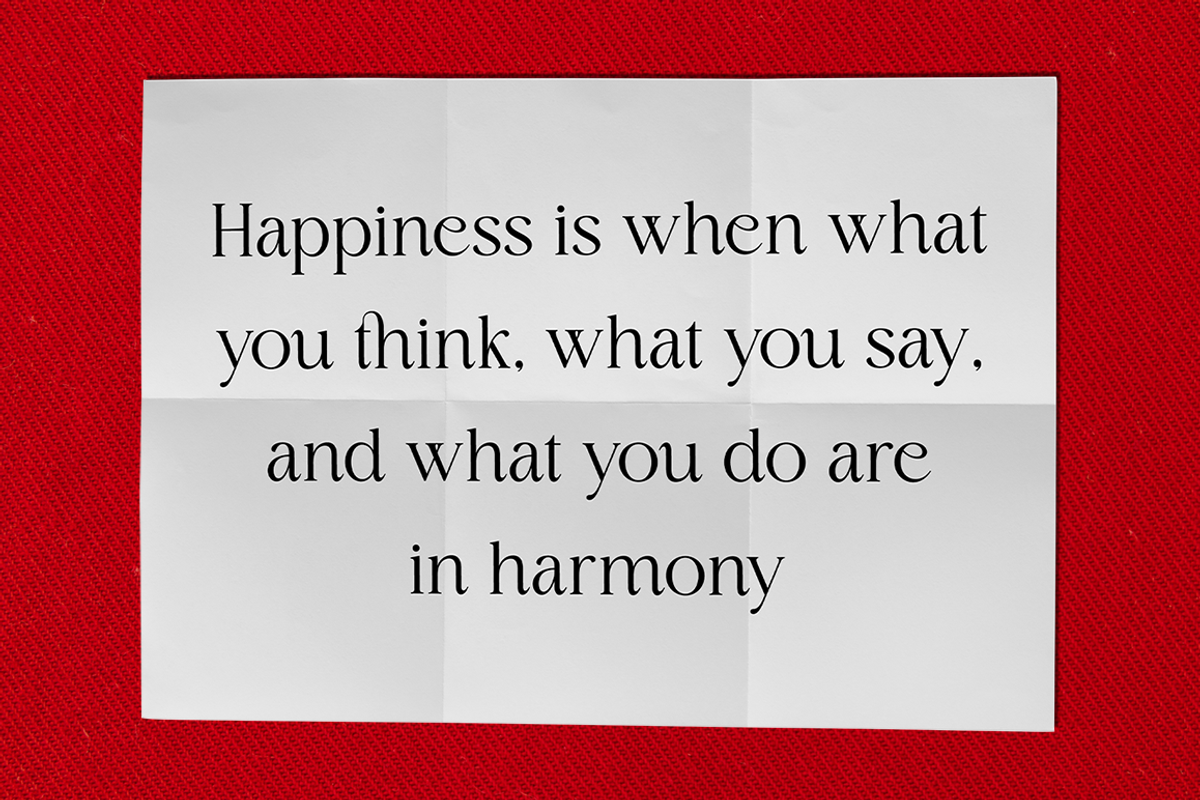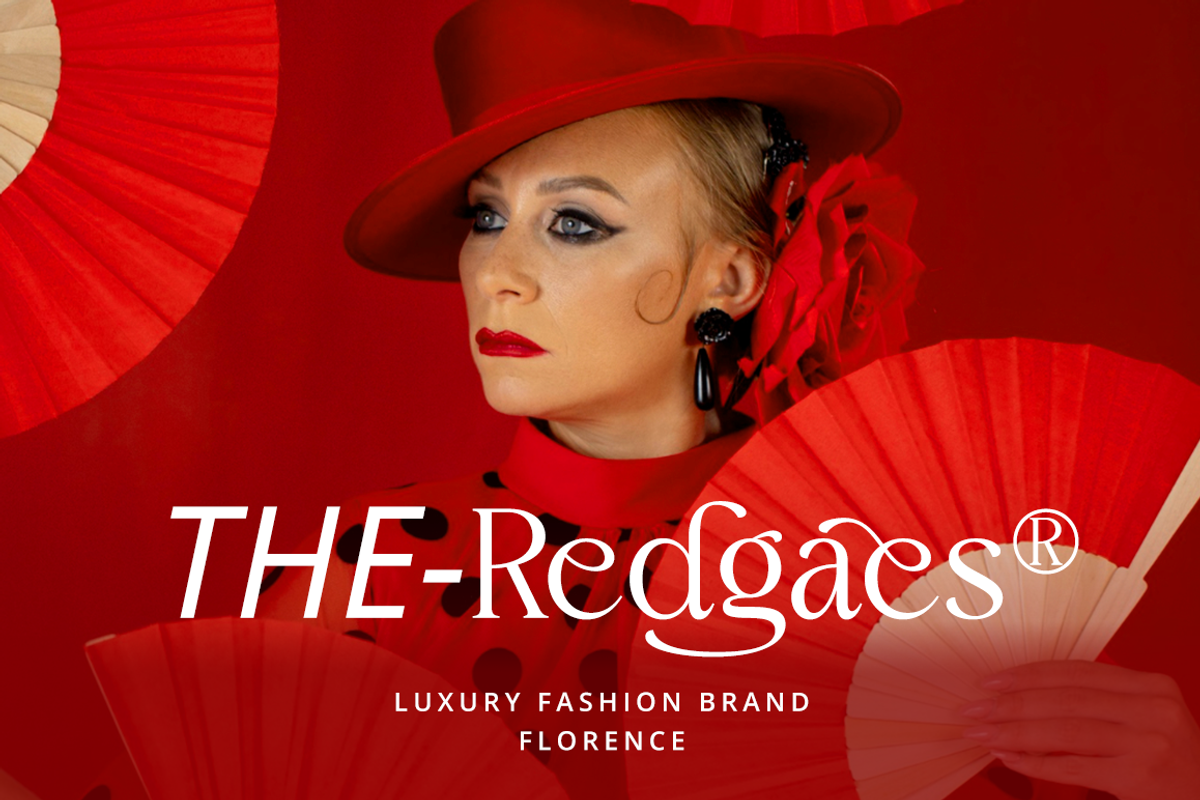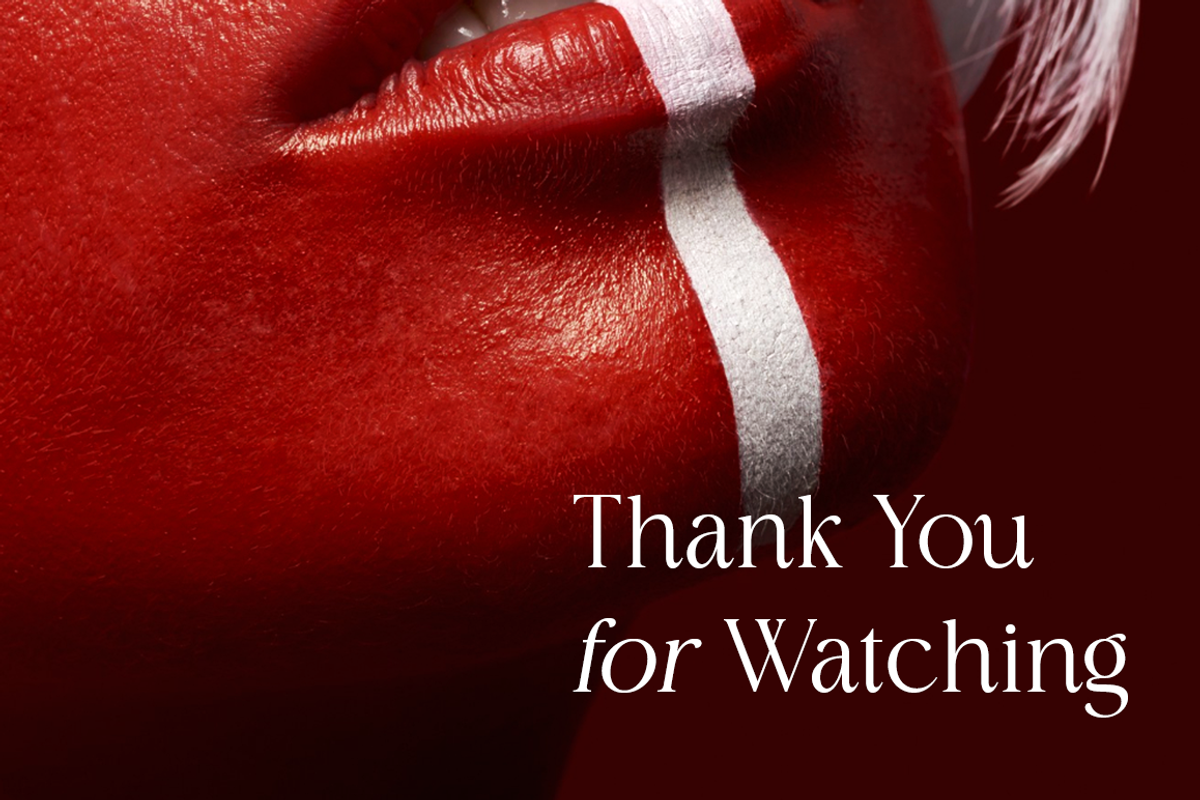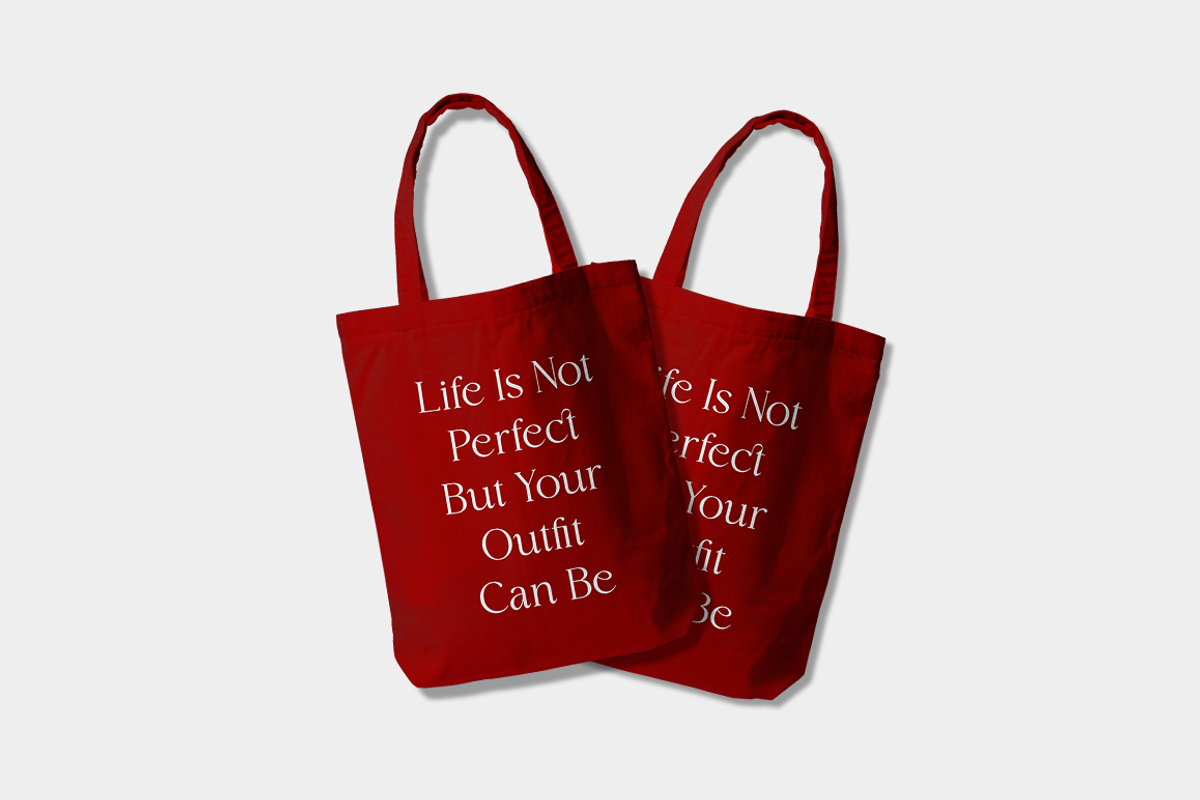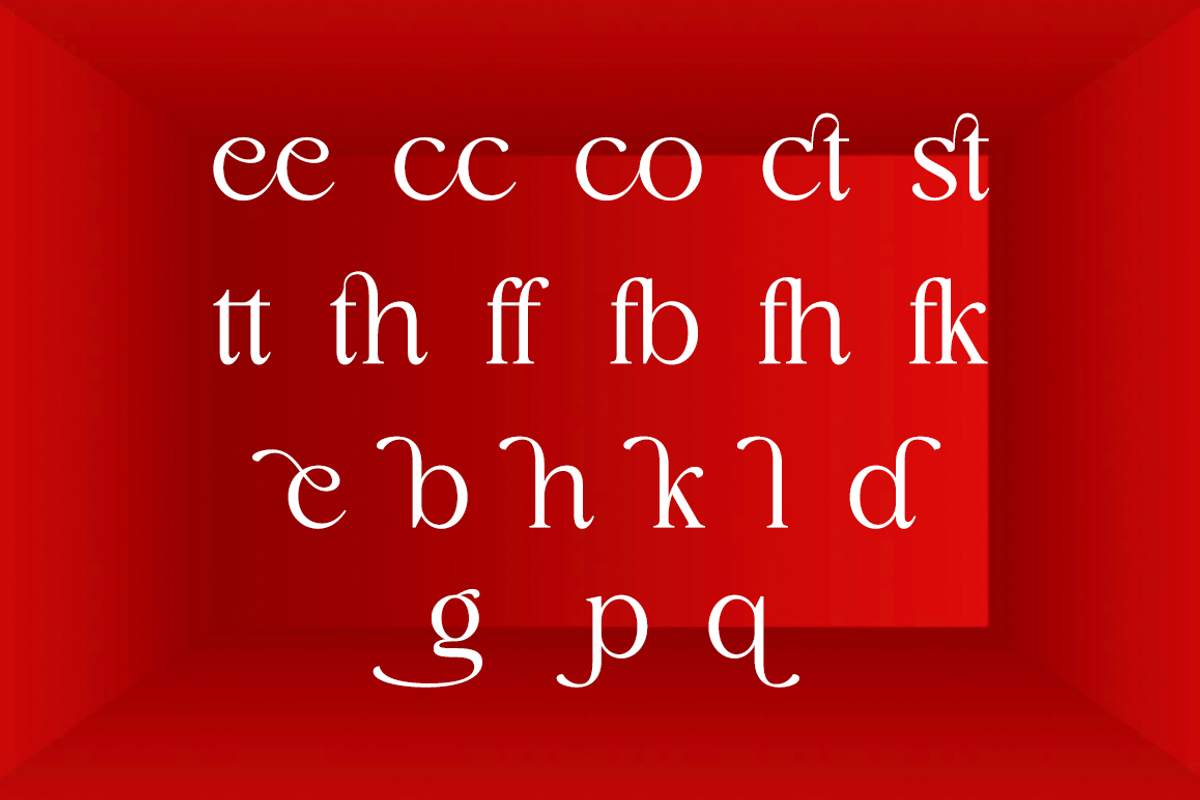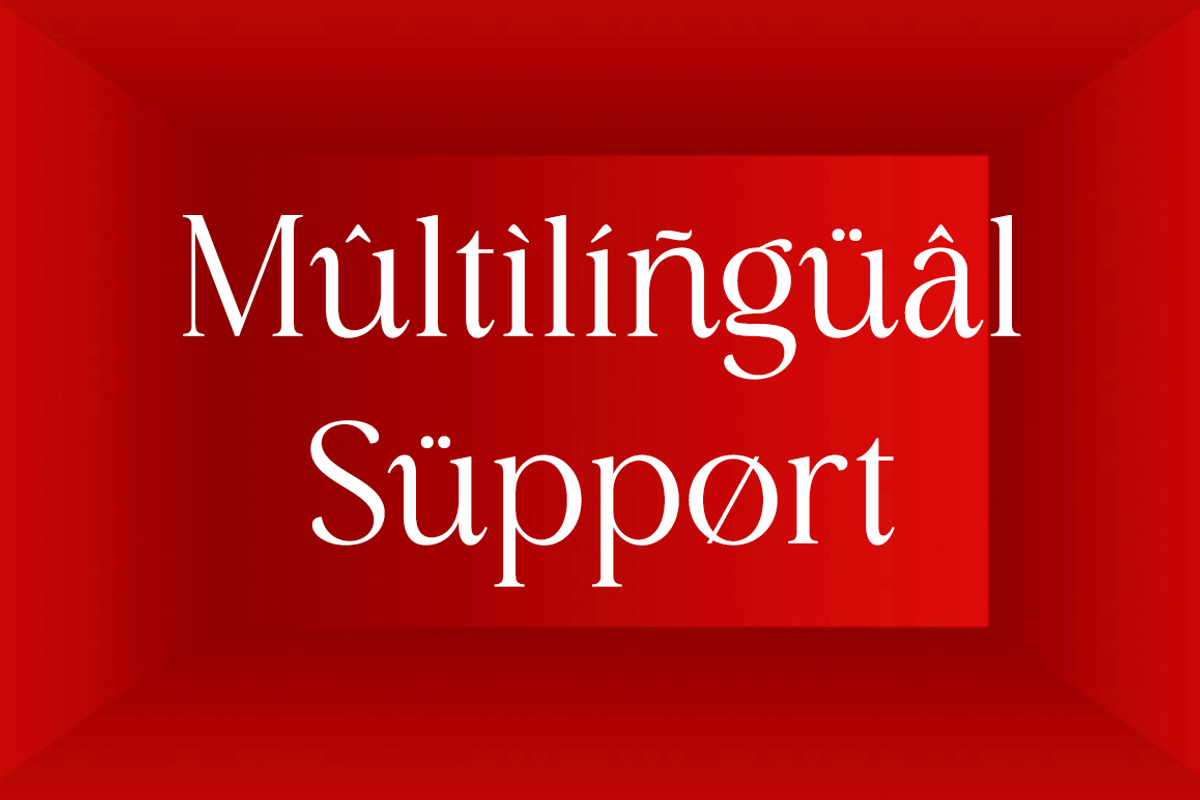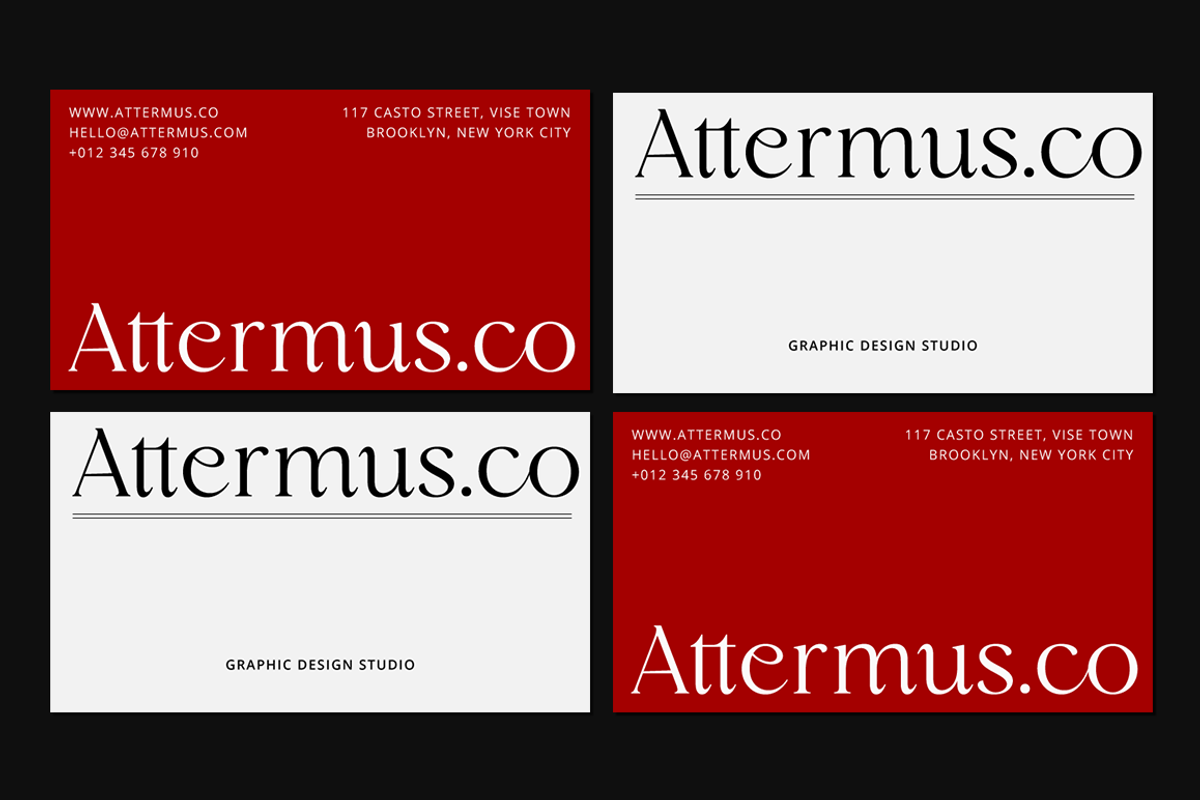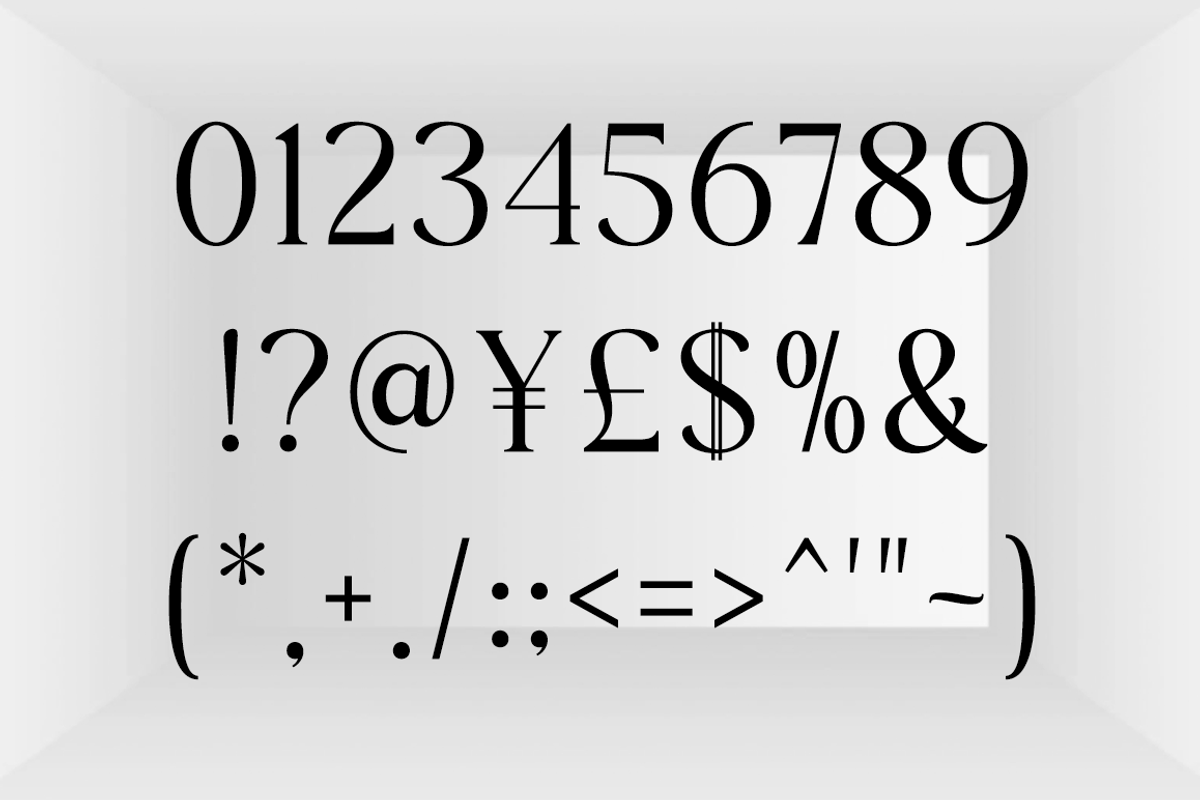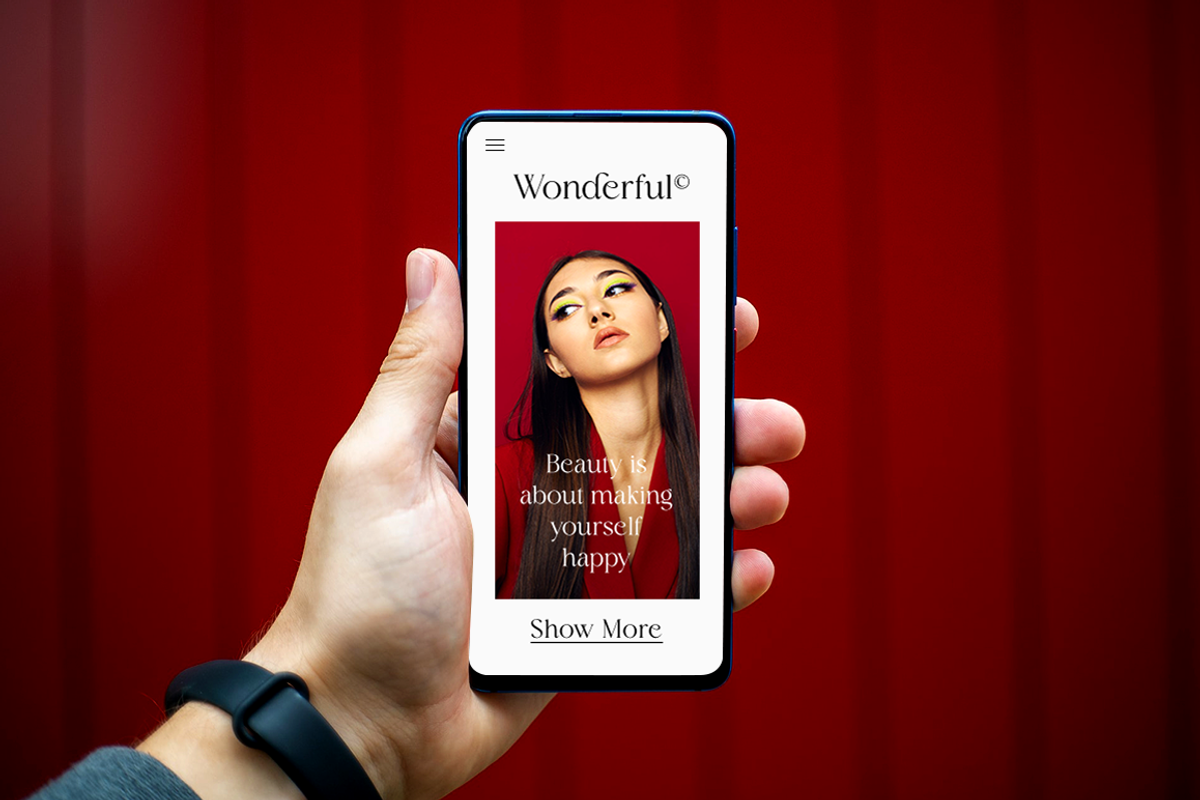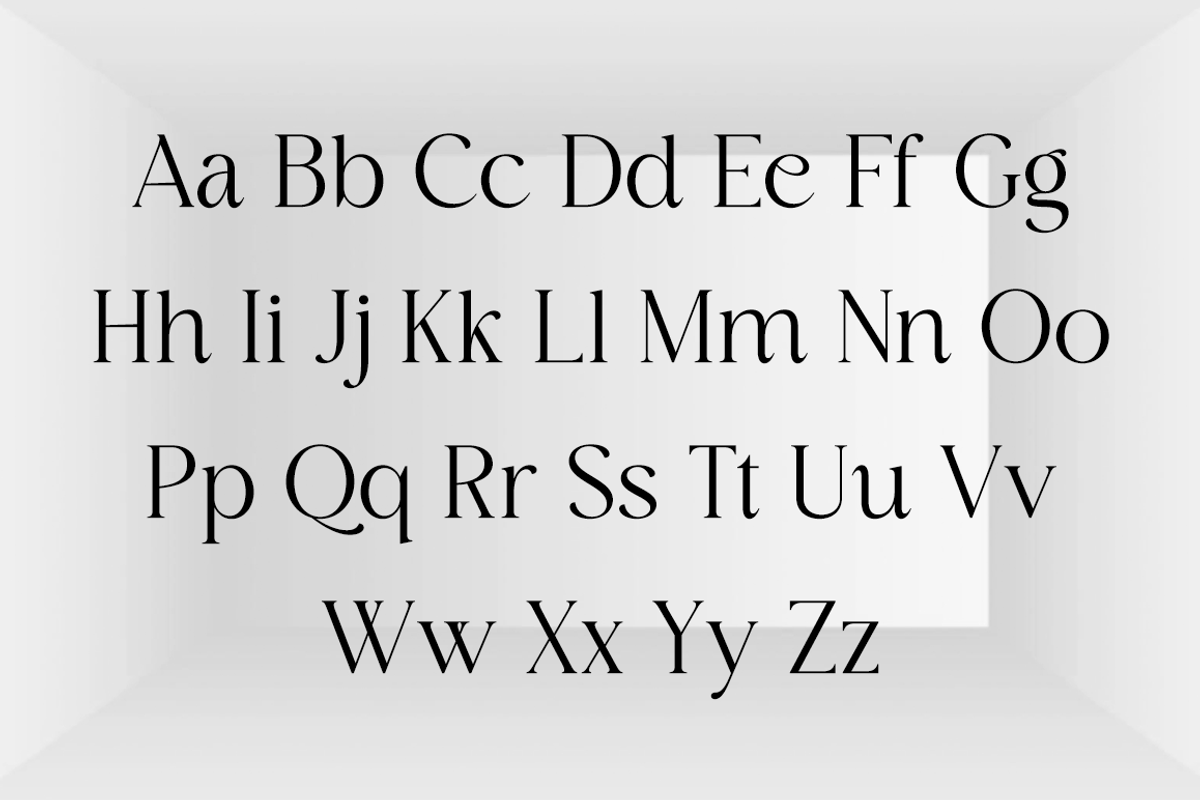
Coastgane - Modern Stylish
Coastgane is an elegant and distinct serif font. Suitable for a wide variety of designs due to its neat and simple style, this font has the potential to become your favorite go-to font, no matter the occasion!